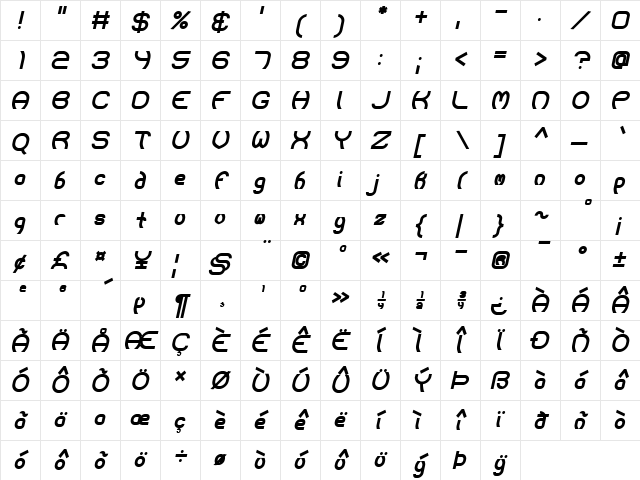
Majistir is a composed and adaptable typeface that performs quietly and consistently across a wide range of design contexts. The slanted form adds forward momentum and visual energy. Its bold stroke weight gives it real presence on the page.
Pro Tip: Use Majistir for emphasis, pull quotes, and subheadings where its slanted energy can add rhythm to the layout.